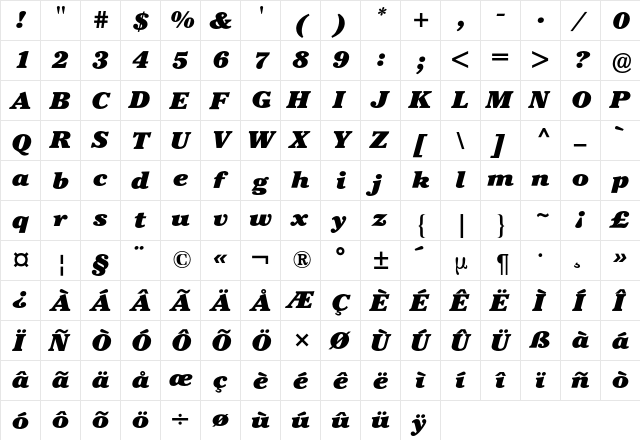
Cheltenham ITC BQ Regular
Design Context for Cheltenham ITC BQ Typeface
Cheltenham ITC BQ is a composed and adaptable typeface that performs quietly and consistently across a wide range of design contexts.